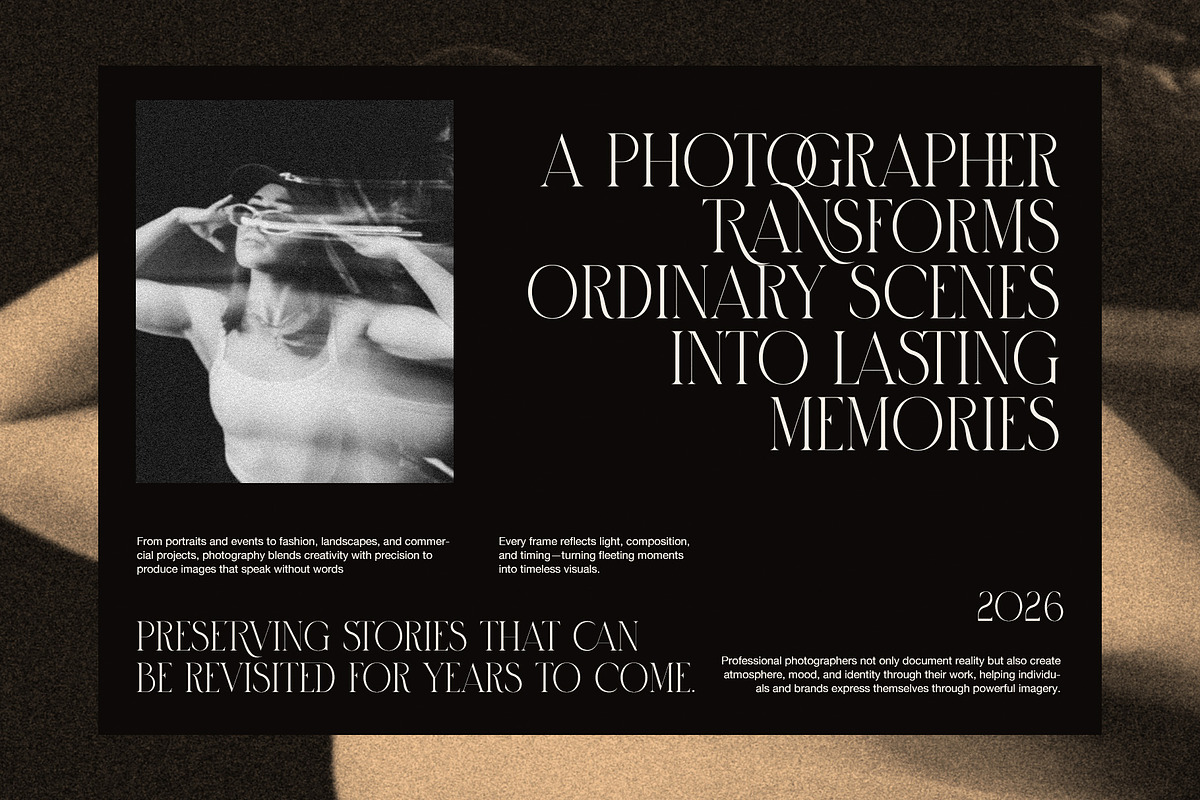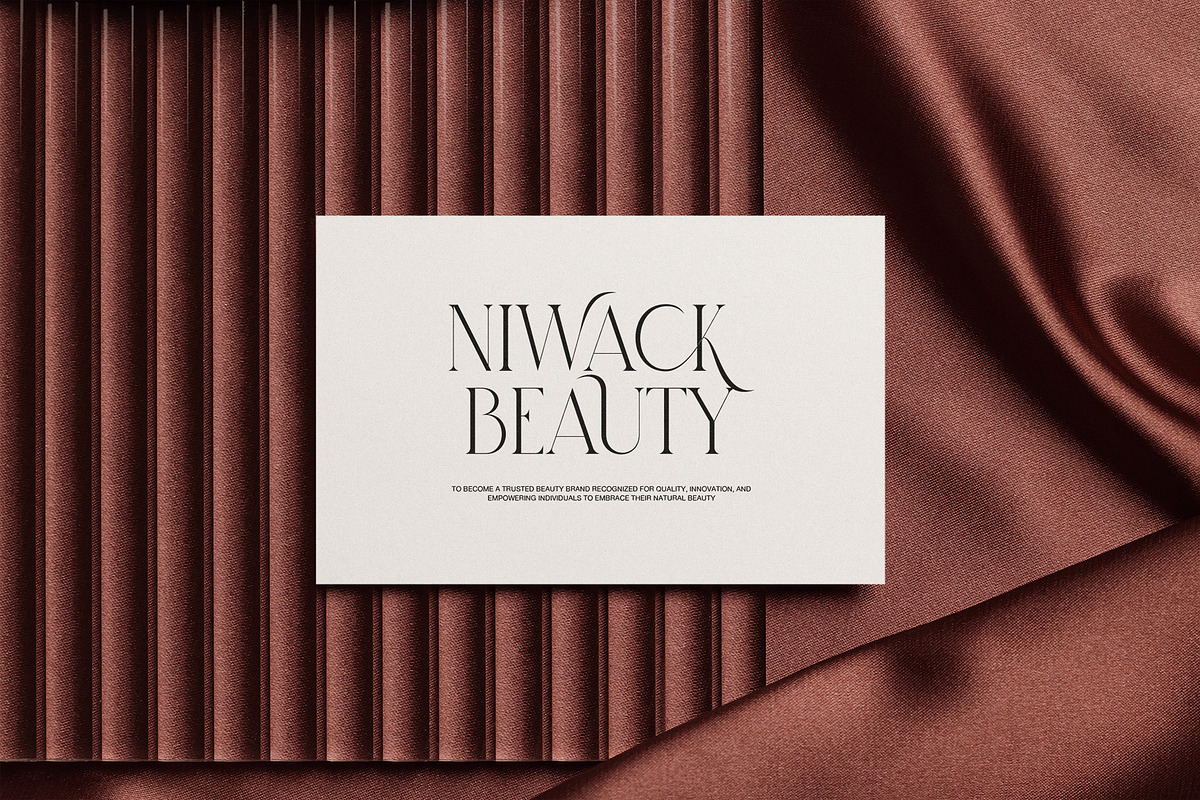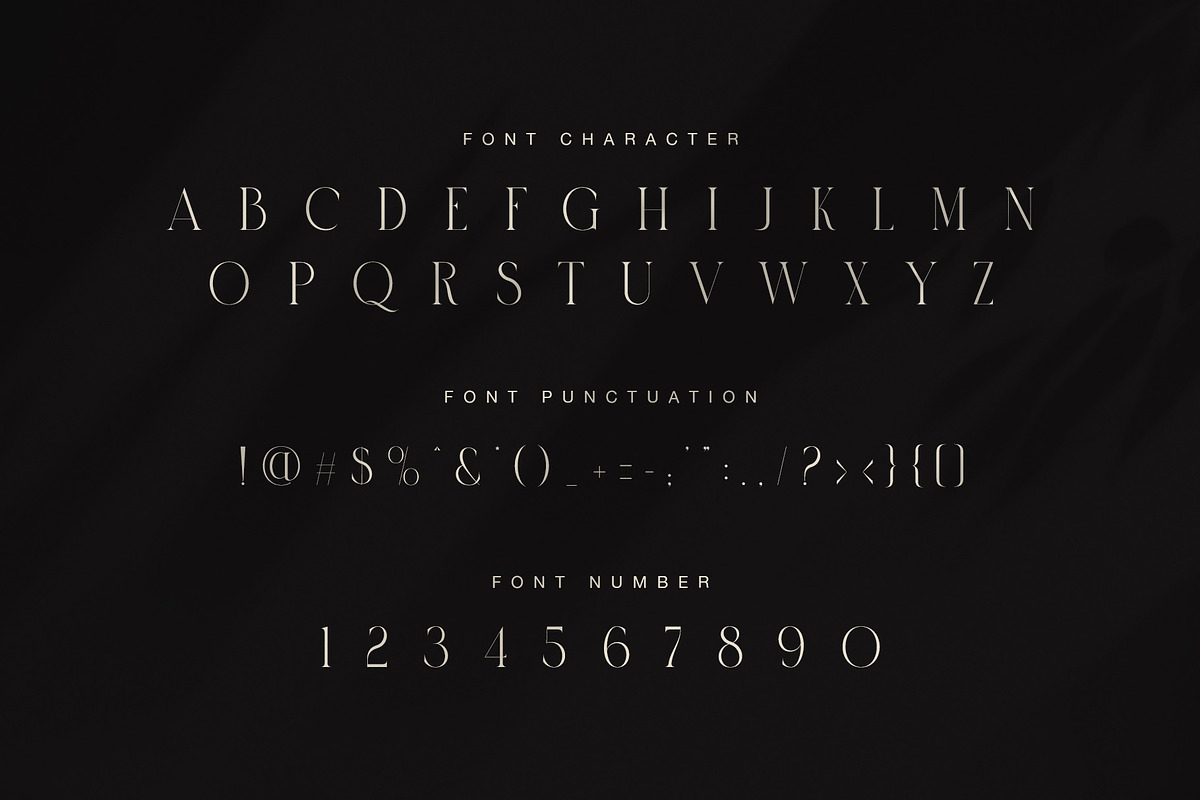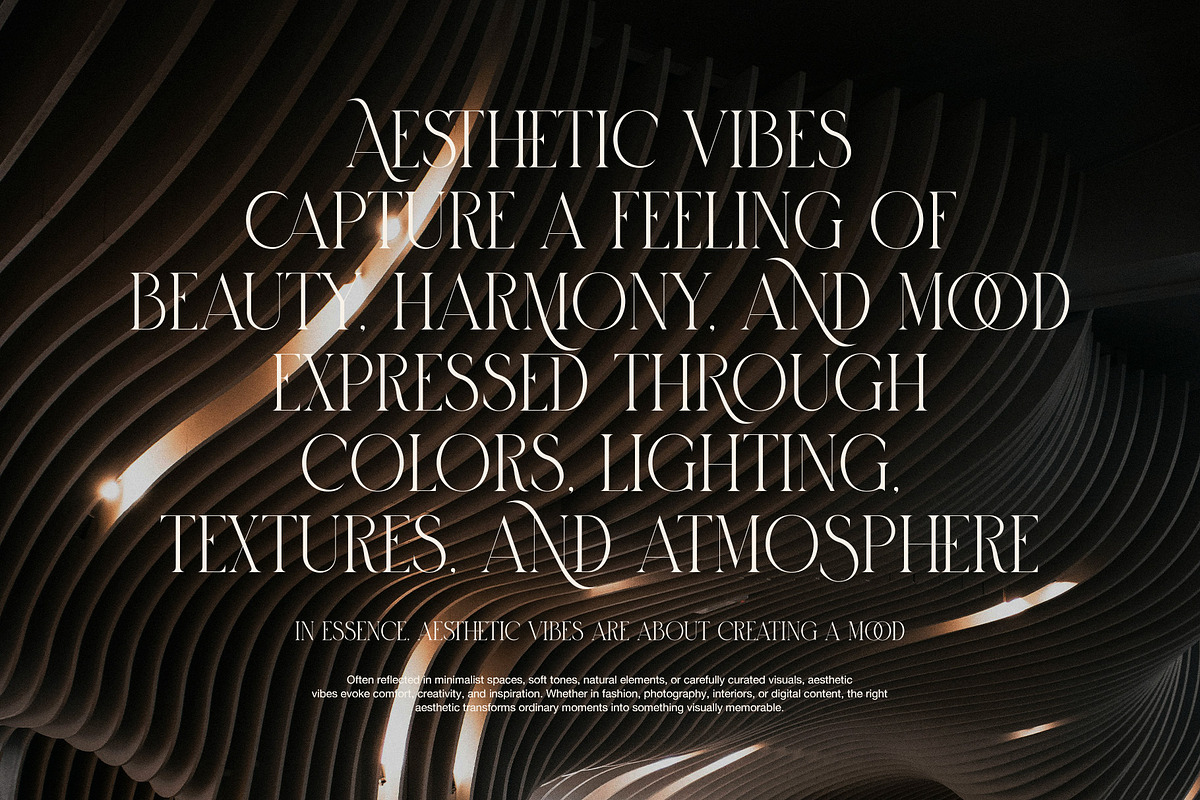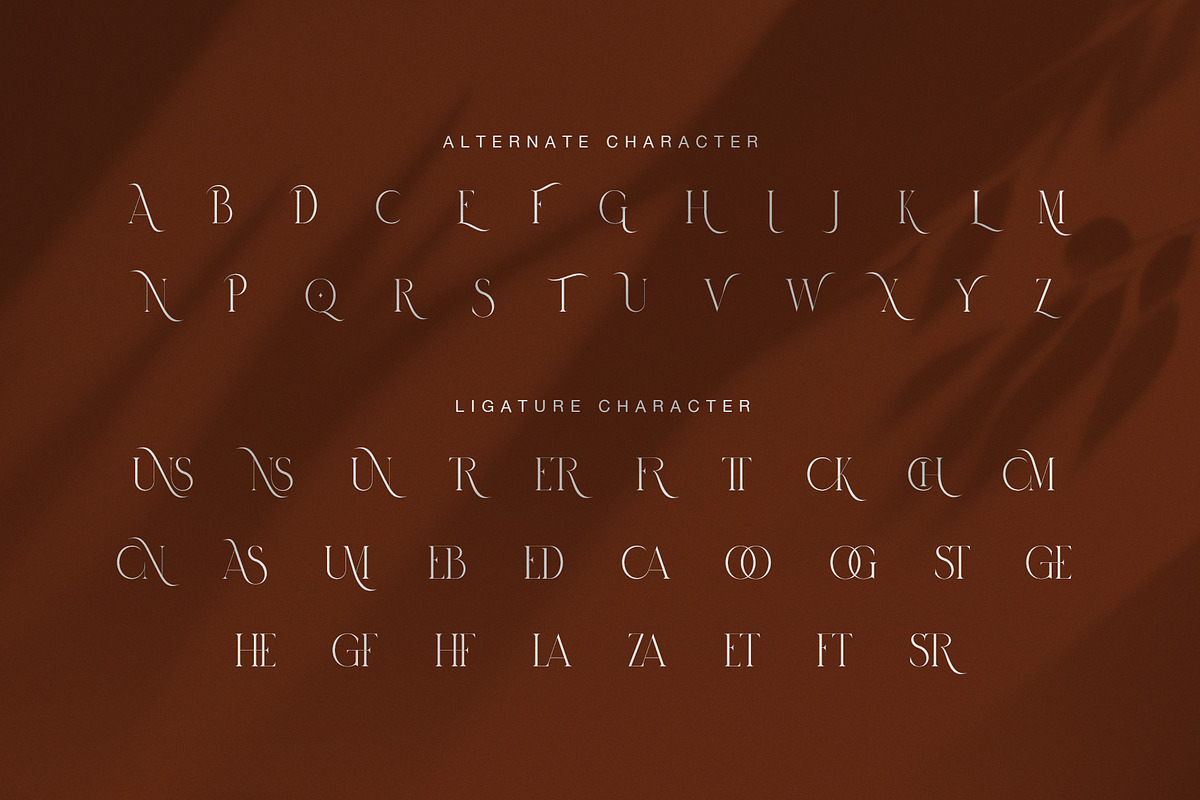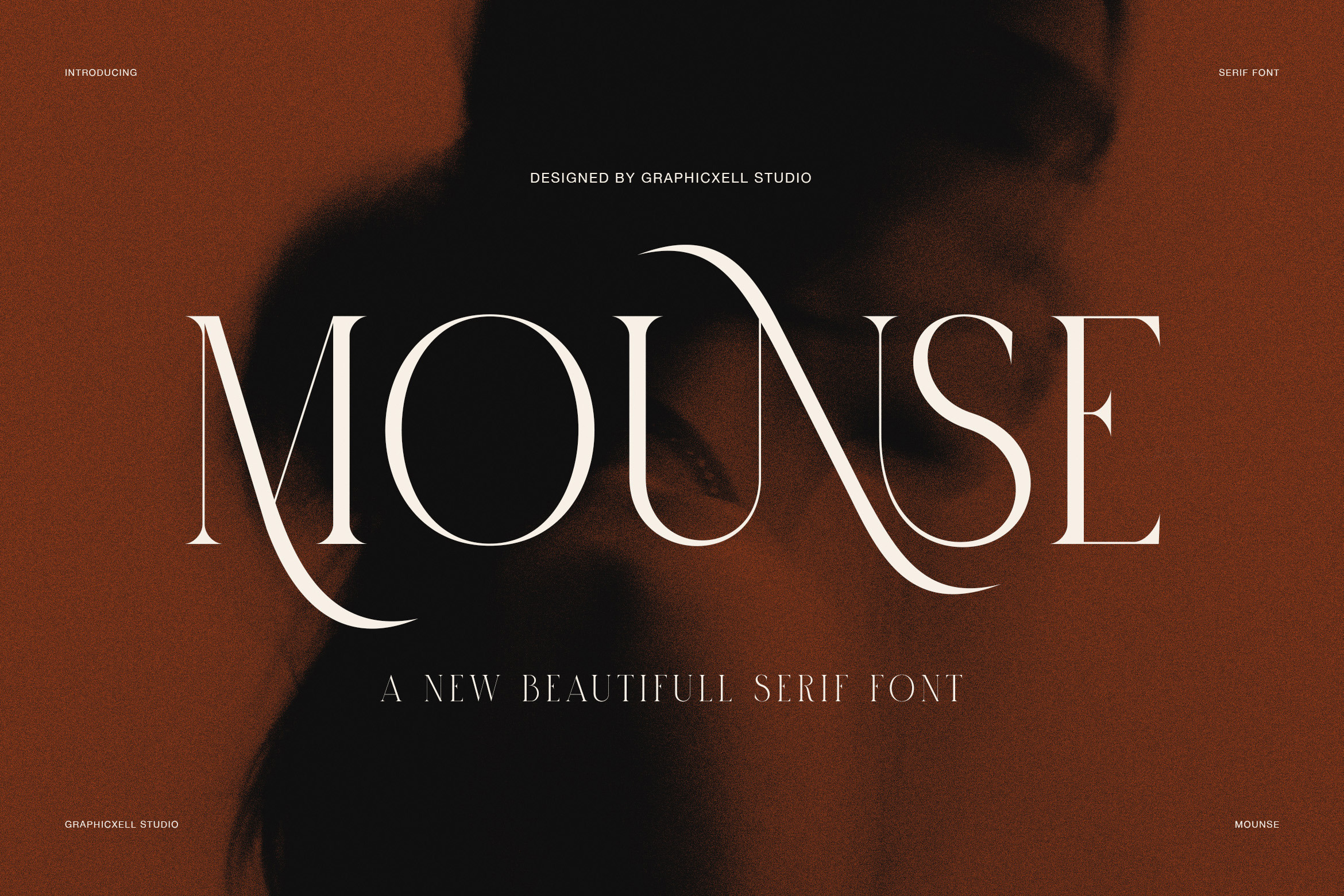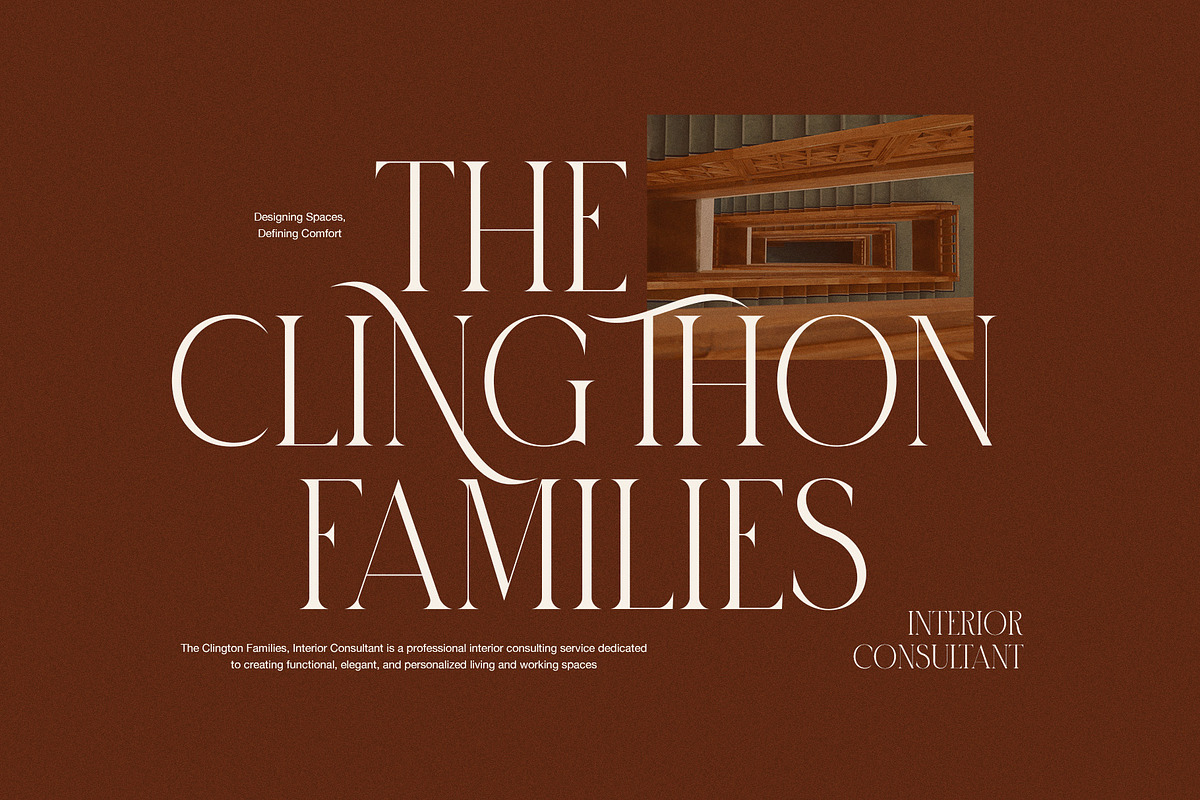
Mounse Elegant Serif Font
Mounse is an elegant serif font with a refined and artistic look. It blends thin lines, graceful curves, and tall letterforms to create a style that feels both modern and timeless. At first glance, this font shows a strong fashion mood. However, it also carries a soft and calm beauty that works well in many creative layouts.
What makes Mounse stand out is its flowing contrast. Several letters feature smooth extended strokes, while others keep a clean and balanced shape. Because of this, the font feels stylish without looking too busy. The uppercase set looks especially striking in large sizes. In headlines, logos, and editorial layouts, it gives a premium and dramatic impression.
Moreover, the alternate characters add more charm to the design. They bring a fresh rhythm to words and make each line feel more custom. The ligatures also help create a seamless and polished look. As a result, Mounse is a strong choice for designers who want text that feels elegant, unique, and memorable.
Why Mounse Works So Well
Mounse is designed for visual impact. Even so, it still keeps a clean structure that makes it useful in branding and display work. The letterforms look beautiful on dark backgrounds, warm tones, minimalist layouts, and luxury concepts. Therefore, it is ideal for projects that need a classy and modern serif font.
Best uses for Mounse:
- luxury branding
- fashion logos
- beauty packaging
- wedding invitations
- editorial headlines
- photography quotes
- interior design branding
- social media graphics
- boutique identity
- premium product labels
- Main Features
This elegant serif font offers:
- beautiful uppercase display style
- stylish alternate characters
- decorative ligatures
- clean punctuation and numbers
- high contrast letterforms
- modern luxury feel
- strong branding appeal
In short, Mounse is perfect for brands that want to look graceful, premium, and artistic. Whether you use it for a logo, magazine title, brand card, or beauty campaign, it adds beauty and character right away.